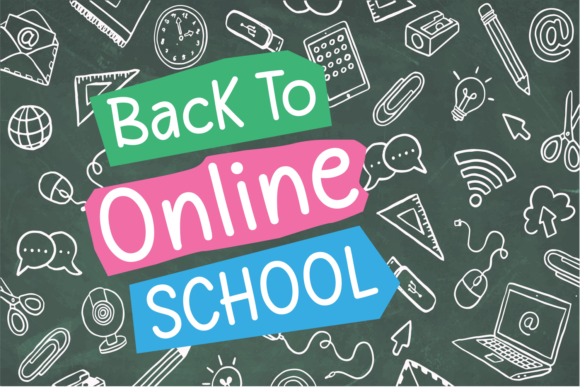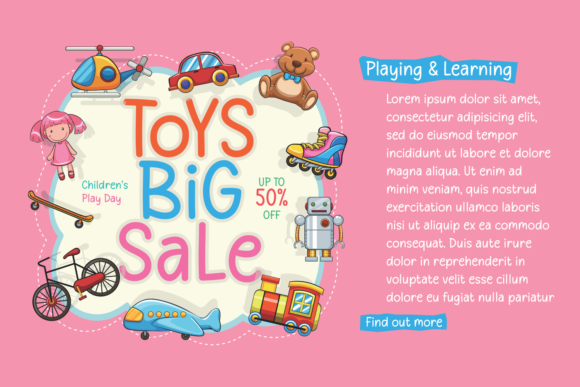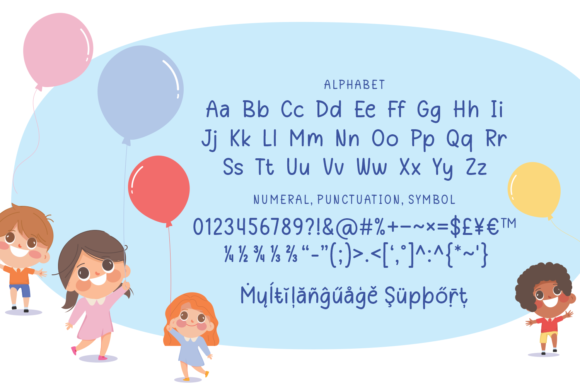
Introduction to Learning for Fun Font
Remember the excitement of creating your first DIY craft project as a kid? The thrill of combining colorful materials and imagination to bring a unique idea to life? That same spark of creativity can be captured with the Learning for Fun Font, a playful handwritten font designed to add a touch of whimsy to your designs.
As a designer, you know how important it is to have a versatile and engaging design element that can elevate your work. The Learning for Fun Font is sure to bring a smile to your clients’ faces and make their products stand out in a crowded market.
Key Features of Learning for Fun Font
- Unique and playful design: The Learning for Fun Font is a high-quality design resource that adds a touch of creativity to any project, making it perfect for educational materials, children’s books, and other creative projects.
- Transparent background: This font comes with a transparent background, allowing for easy layering and customization to fit your design needs.
- High-quality design: This font is designed with high-quality graphics, ensuring that it looks great at any resolution, from 72 dpi to 300 dpi.
- Perfect for creative projects: Whether you’re working on a children’s book, educational material, or any other creative project, the Learning for Fun Font is a great choice for adding a touch of fun and whimsy.
Honest Review: Learning for Fun Font
- ✨ The font has a playful, hand-drawn feel that’s perfect for projects that need a touch of whimsy.
- ✨ The high quality of the font is evident in its crisp lines and smooth curves.
- ✨ The transparent background makes it easy to use with different design elements.
However, I do have some concerns:
- ⚠️ The font may not be suitable for formal or professional projects, as it has a more casual feel.
- ⚠️ The font family is relatively small, which may limit its versatility.
Overall, I think the Learning for Fun Font is a great addition to any designer’s toolkit, especially for creative projects that require a playful touch. While it may have some limitations, its high quality and unique style make it a valuable resource to have.